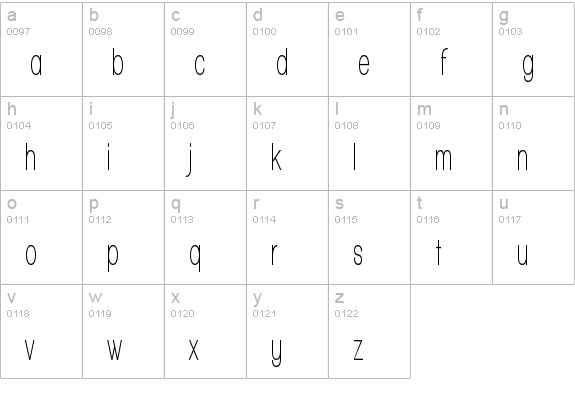
Walkway UltraCondensed Semi font is a stunning display font that combines elegance with modernity. With its tall and slim letterforms, this font exudes a sense of sophistication and professionalism. It is perfect for headlines, logos, posters, and any other design project that requires a touch of refinement. The Walkway UltraCondensed Semi font is characterized by its condensed proportions, making it an excellent choice for fitting large amounts of text into limited spaces. Its semi-bold weight adds a subtle boldness to each character, making them stand out without overwhelming the overall design. One of the best features of this font is that it is freely available to download at FontsMarket.com. This means that you can easily incorporate this font into your designs without any hassle or cost. Whether you are a professional designer or a casual creator, having access to high-quality fonts like Walkway UltraCondensed Semi can greatly enhance the impact of your work. The versatility of the Walkway UltraCondensed Semi font is truly impressive. It can be used in a variety of design styles, from sleek and minimalistic to bold and eye-catching. The clean and crisp lines of each letter ensure legibility, even at smaller sizes, making it suitable for both print and digital mediums. In addition to its aesthetic appeal, the Walkway UltraCondensed Semi font also offers excellent readability. Each character is carefully crafted to ensure clarity, ensuring that your audience can easily absorb the message you are trying to convey. Whether you are designing a magazine spread, a website banner, or a social media post, this font will make your text effortlessly readable. Overall, Walkway UltraCondensed Semi font is a must-have for any designer or creative individual seeking a stylish and professional font. Its sleek and condensed design, combined with its free availability at FontsMarket.com, makes it a valuable addition to your font library. Download this font today and elevate your designs to new heights.